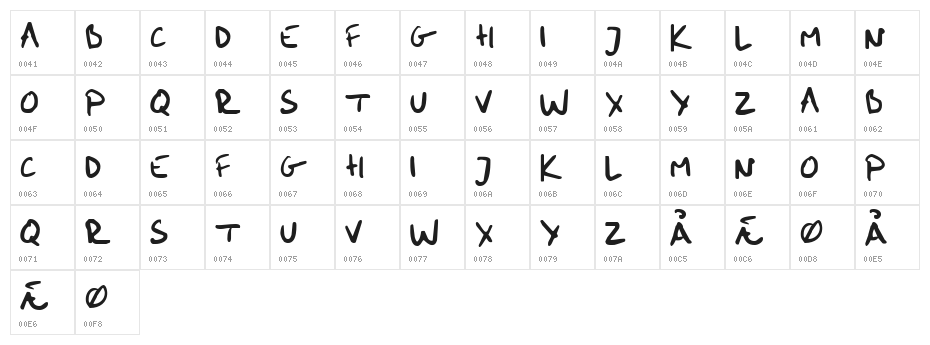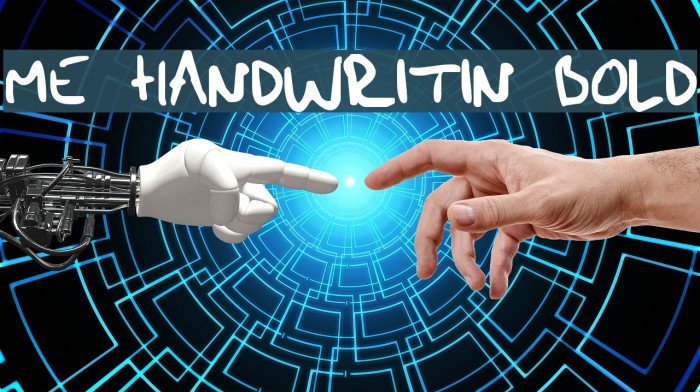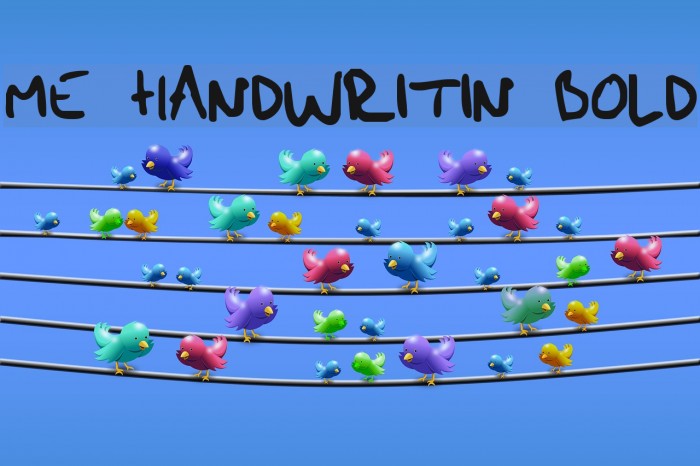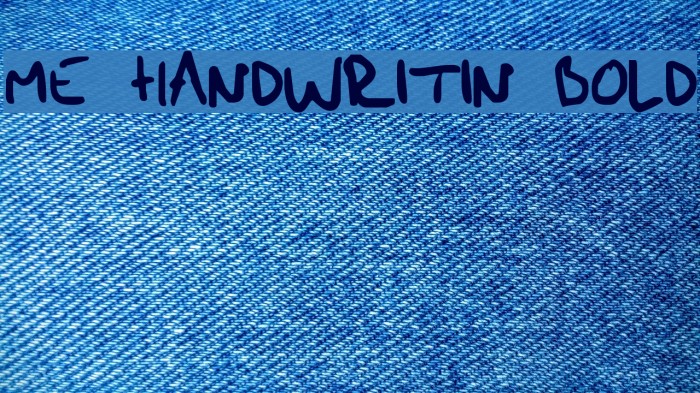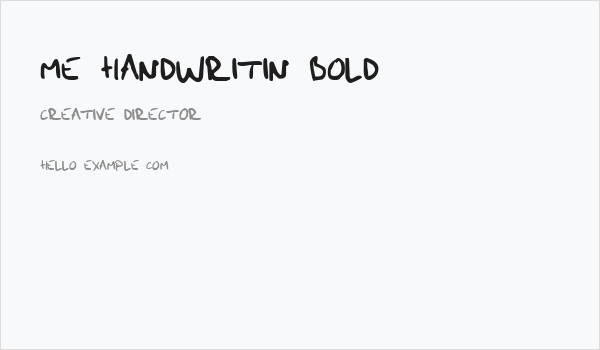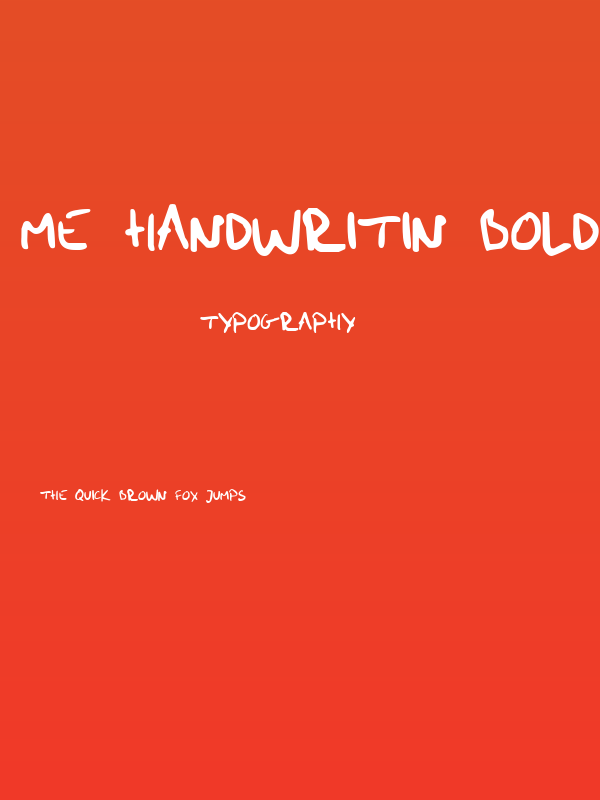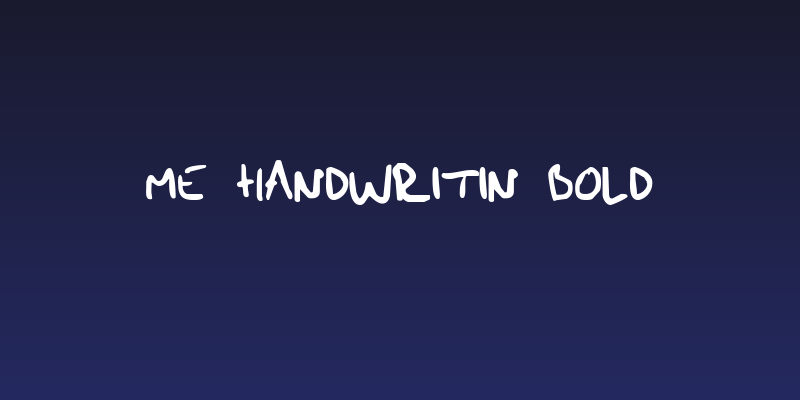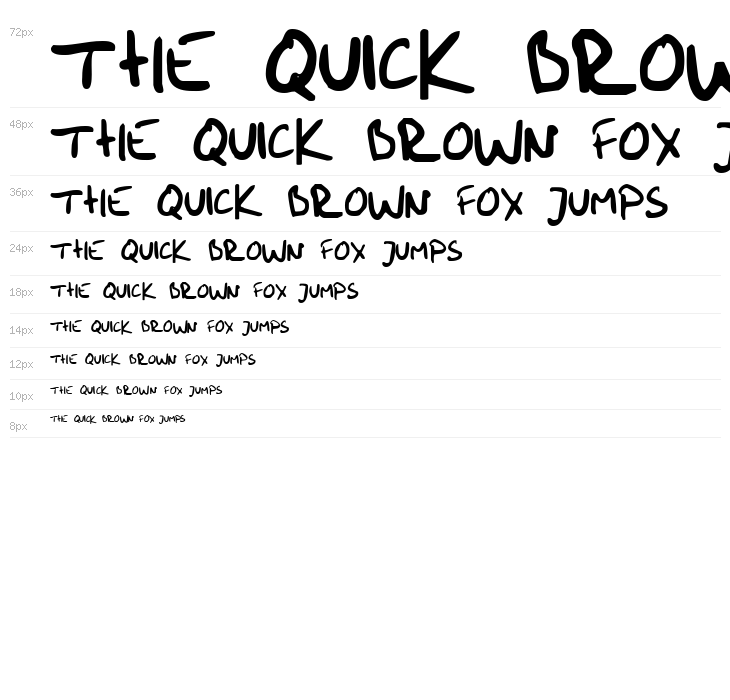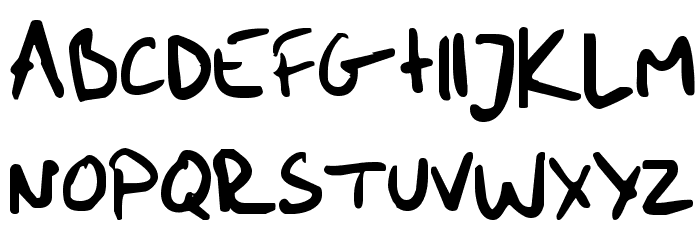
me handwritin Bold Font
me handwritin Bold Description
This font exudes a casual and playful handwritten style, characterized by its bold and rounded letterforms. Each character appears as if it was drawn with a marker, giving it a friendly and approachable feel. The strokes are consistent in thickness, contributing to a uniform appearance across all letters. The uppercase and lowercase letters maintain a cohesive look, with slight variations that add to the handwritten charm. The numbers and special characters are designed to match the overall style, ensuring a seamless integration in any text. This font is perfect for projects that require a personal touch, such as invitations, greeting cards, or informal branding.
| Use Case | Headlines, Informal text, Branding |
| Proposed Projects | Ideal for greeting cards, invitations, children's books, and informal branding. |